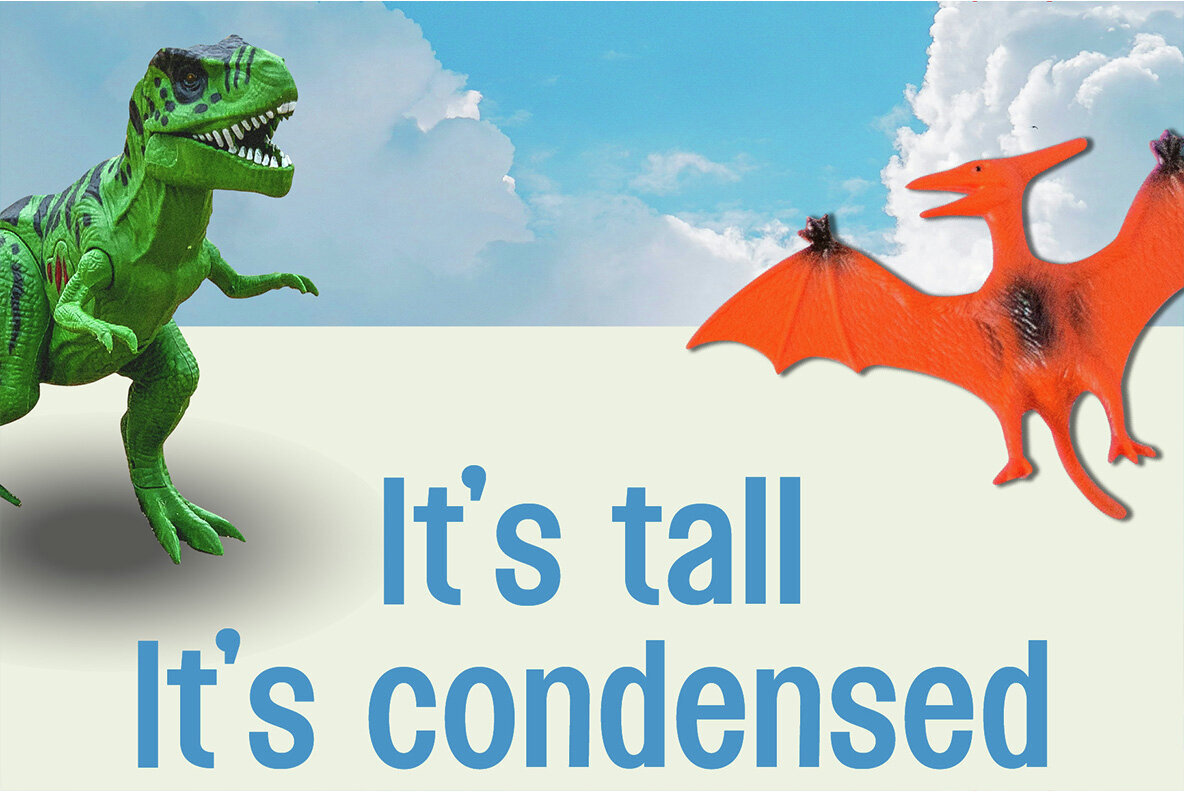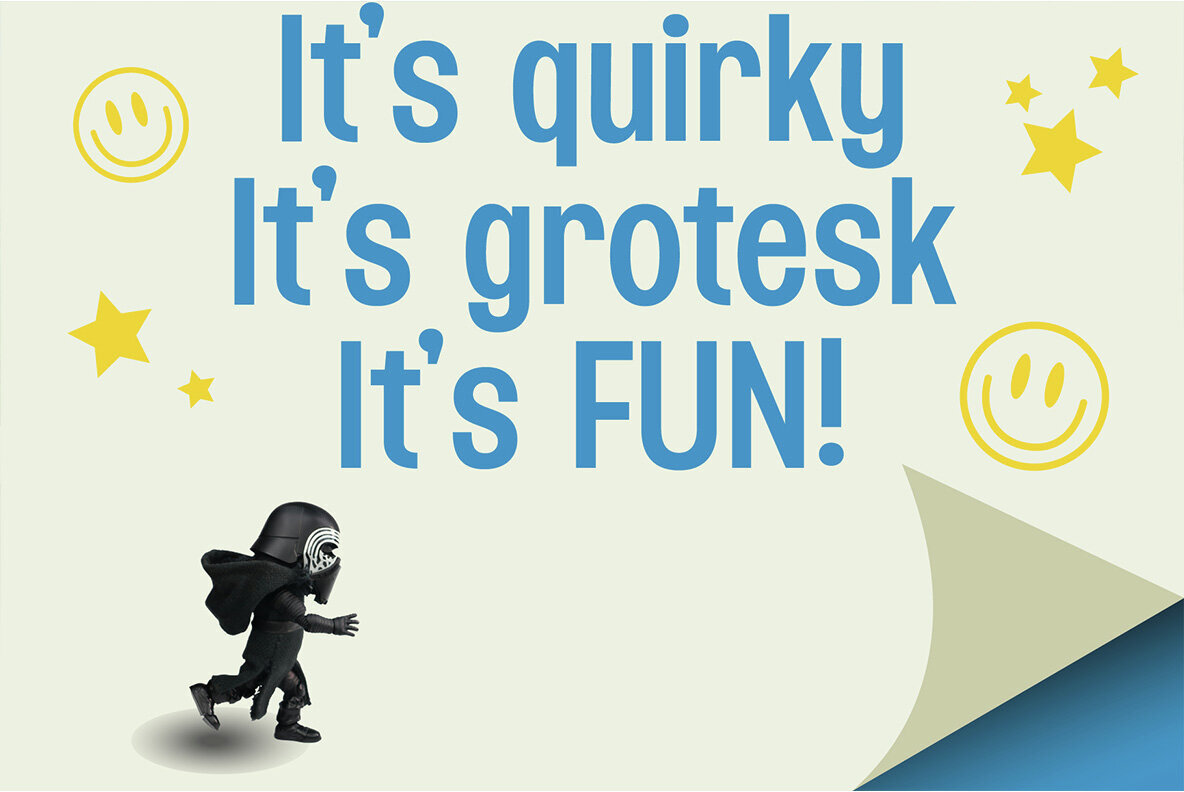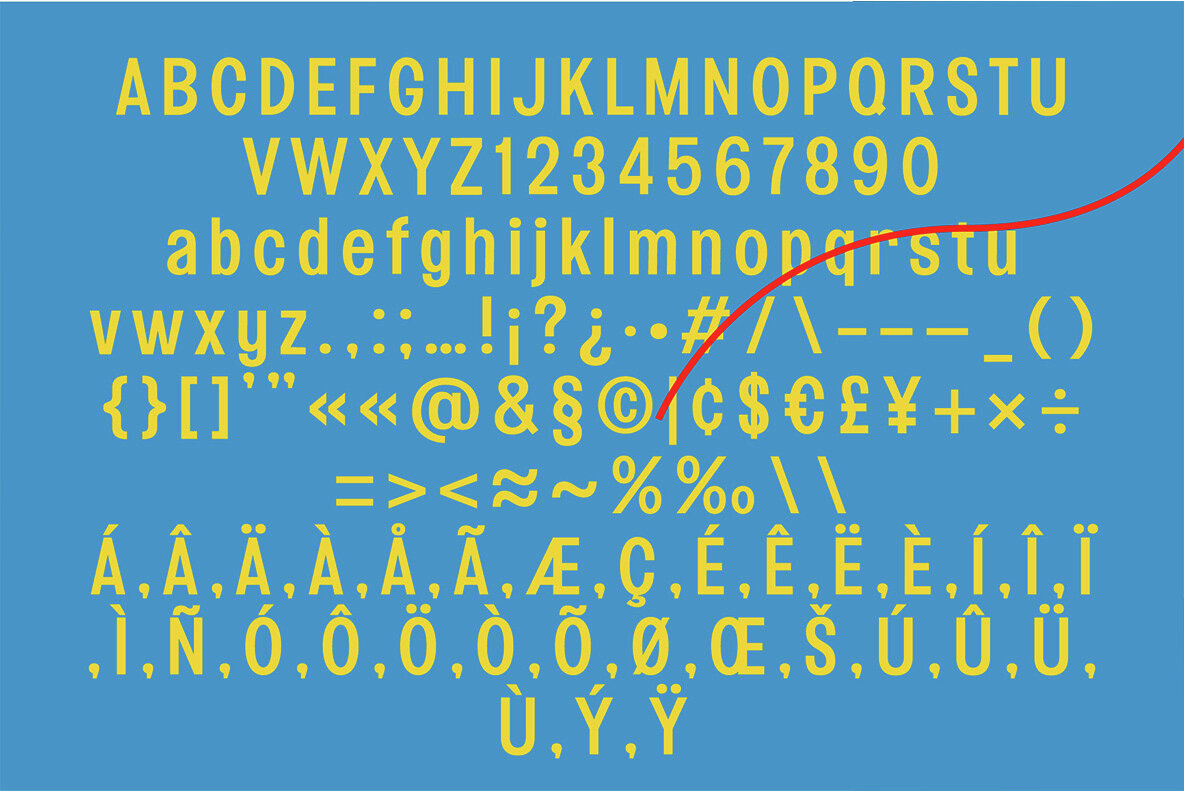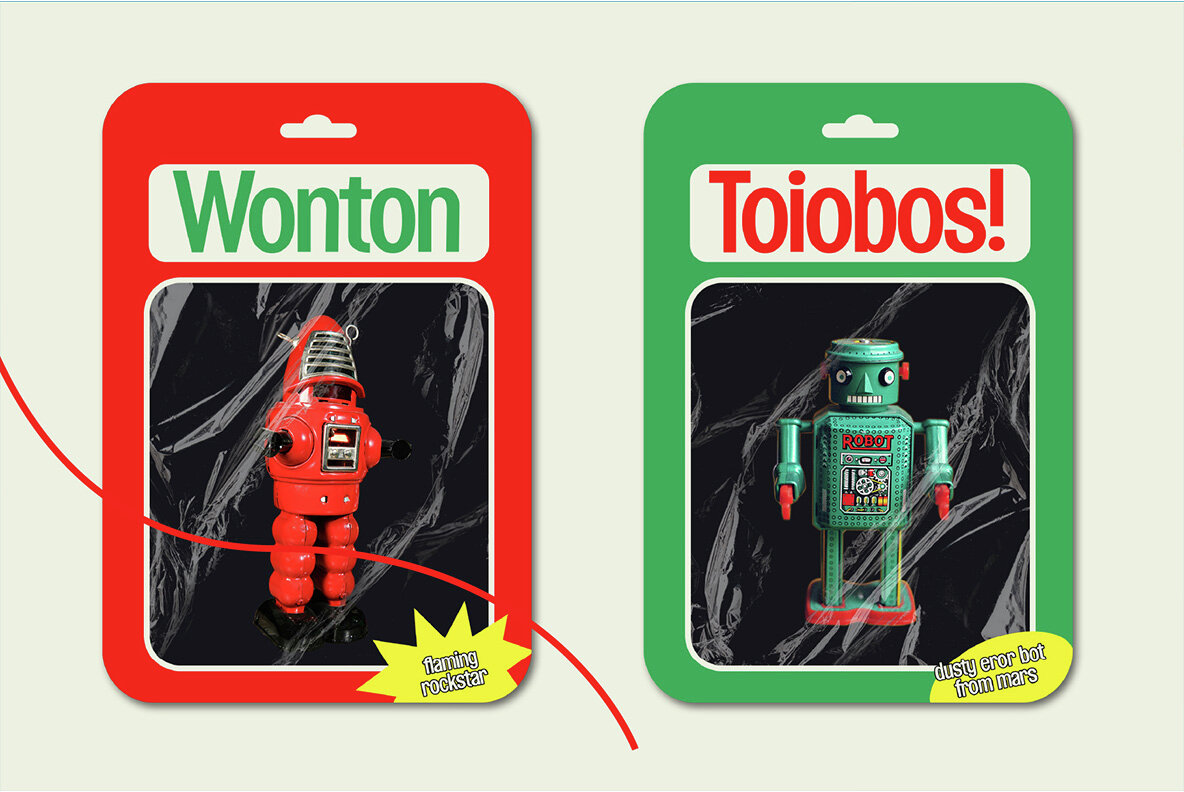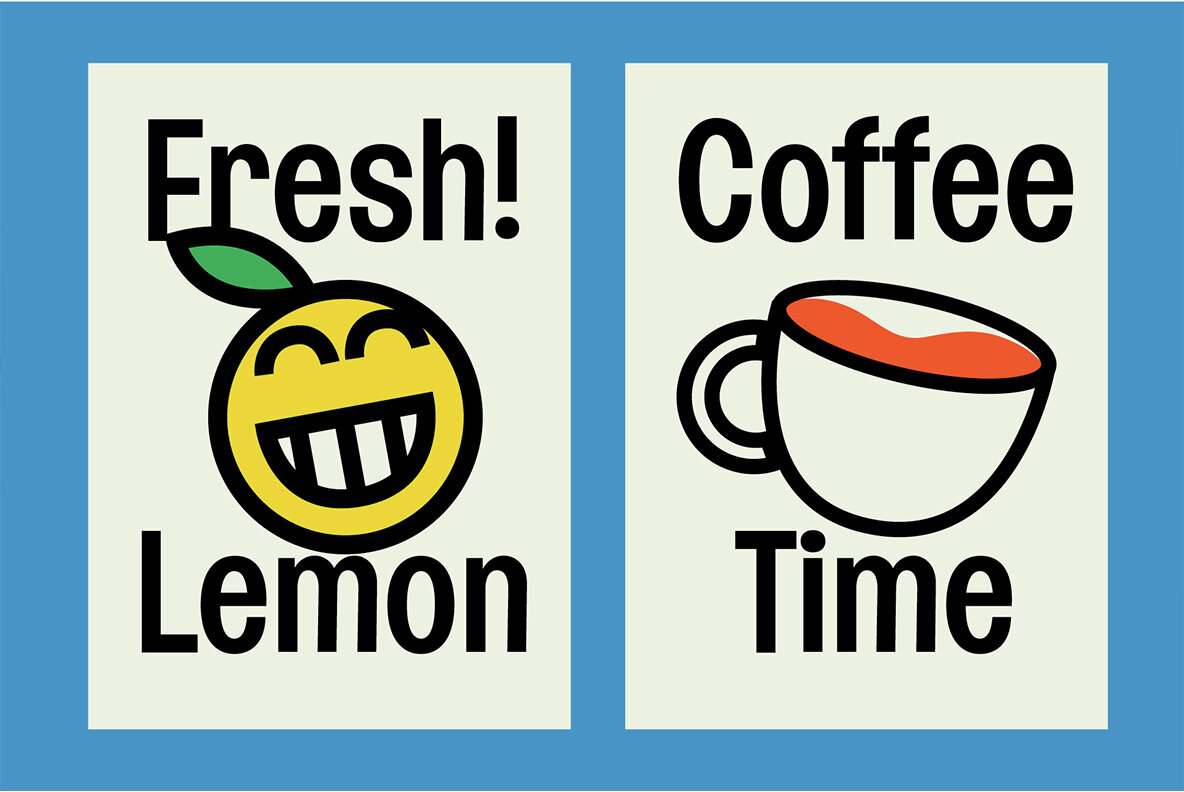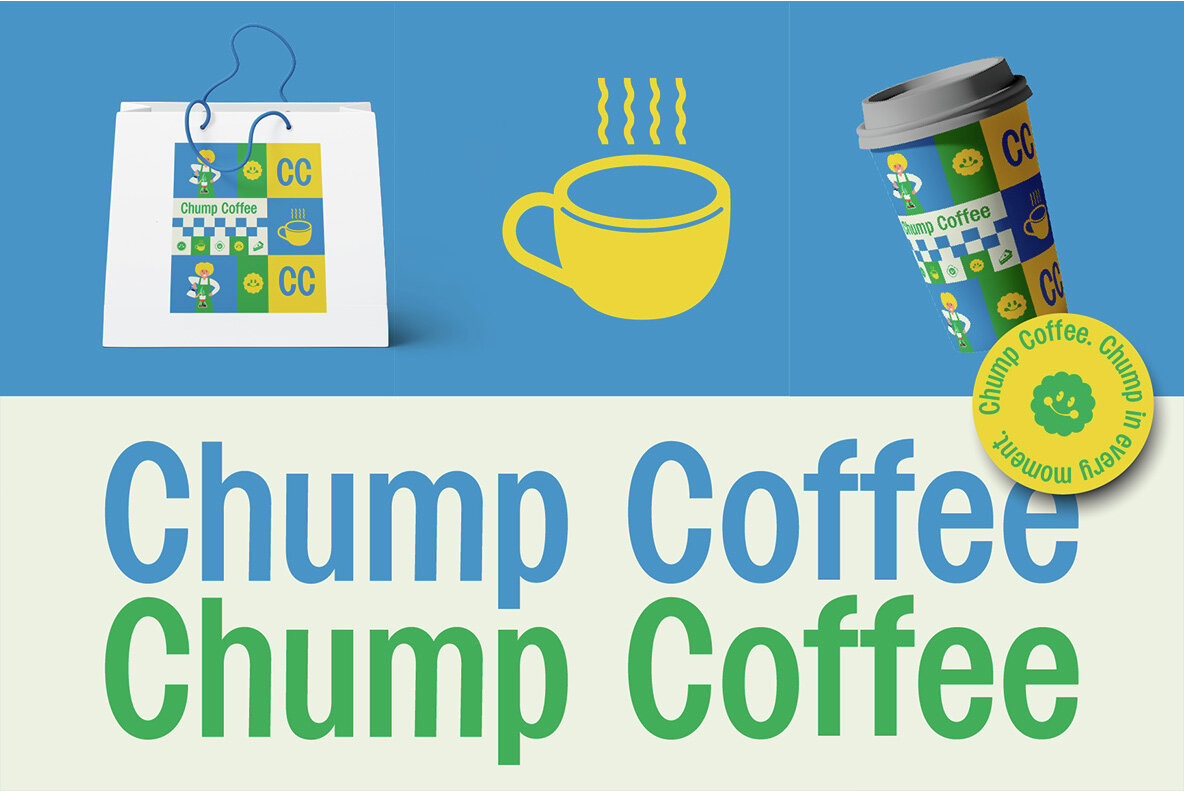
Tois Grotesk Font
Tois Condensed Regular
Tois Grotesk is a playful and distinctive condensed display typeface designed by PeanutButter Type. Its quirky and lively character makes it an excellent choice for a variety of creative applications. Whether you're designing eye-catching stickers, bold posters, unique branding materials, or other graphic projects, Tois Grotesk adds a touch of personality and flair. Its versatility and charm make it suitable for both digital and print mediums, helping your designs stand out with a fun and modern aesthetic. The typeface’s compact form ensures readability while maintaining a strong visual impact, making it ideal for projects that require both style and clarity.